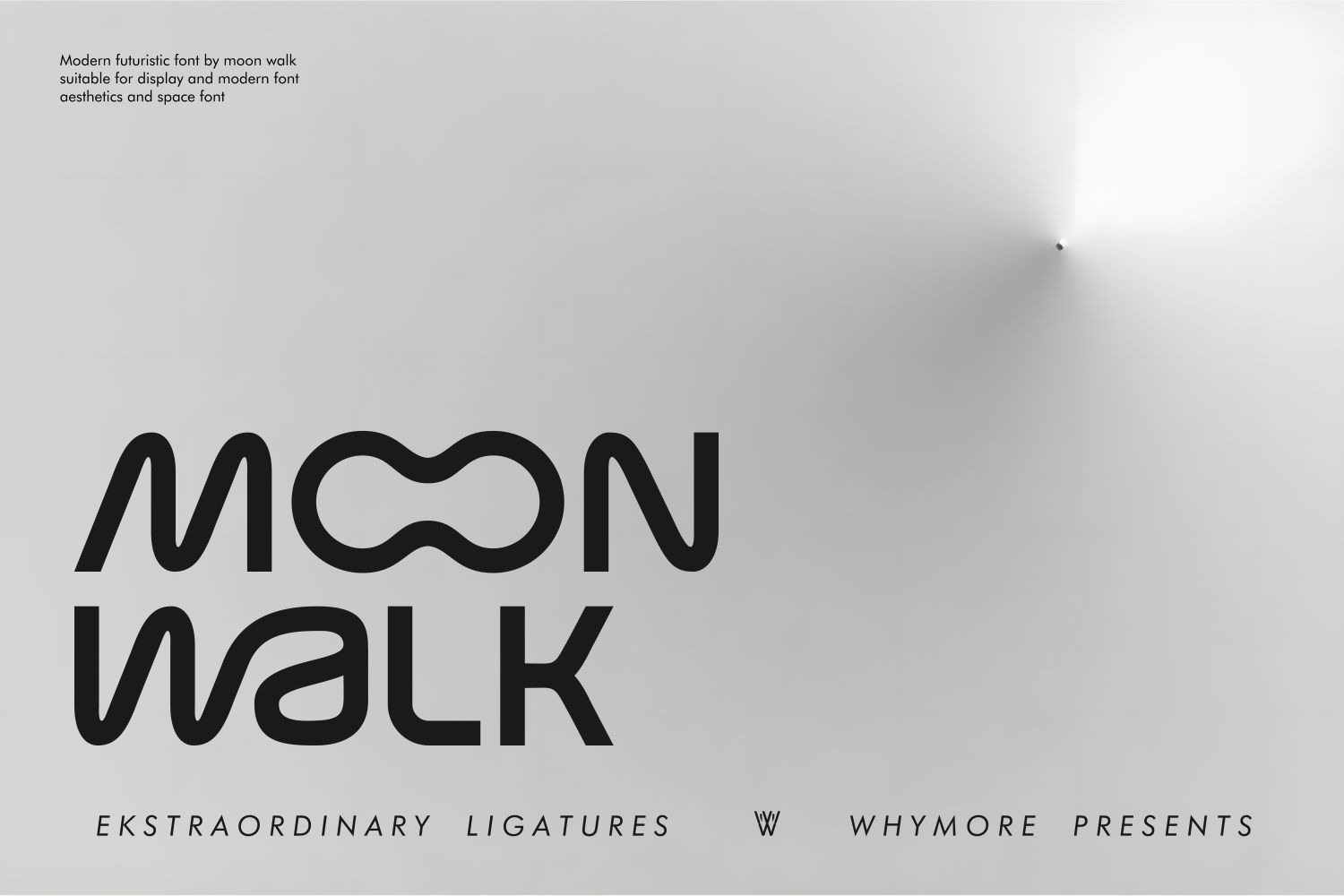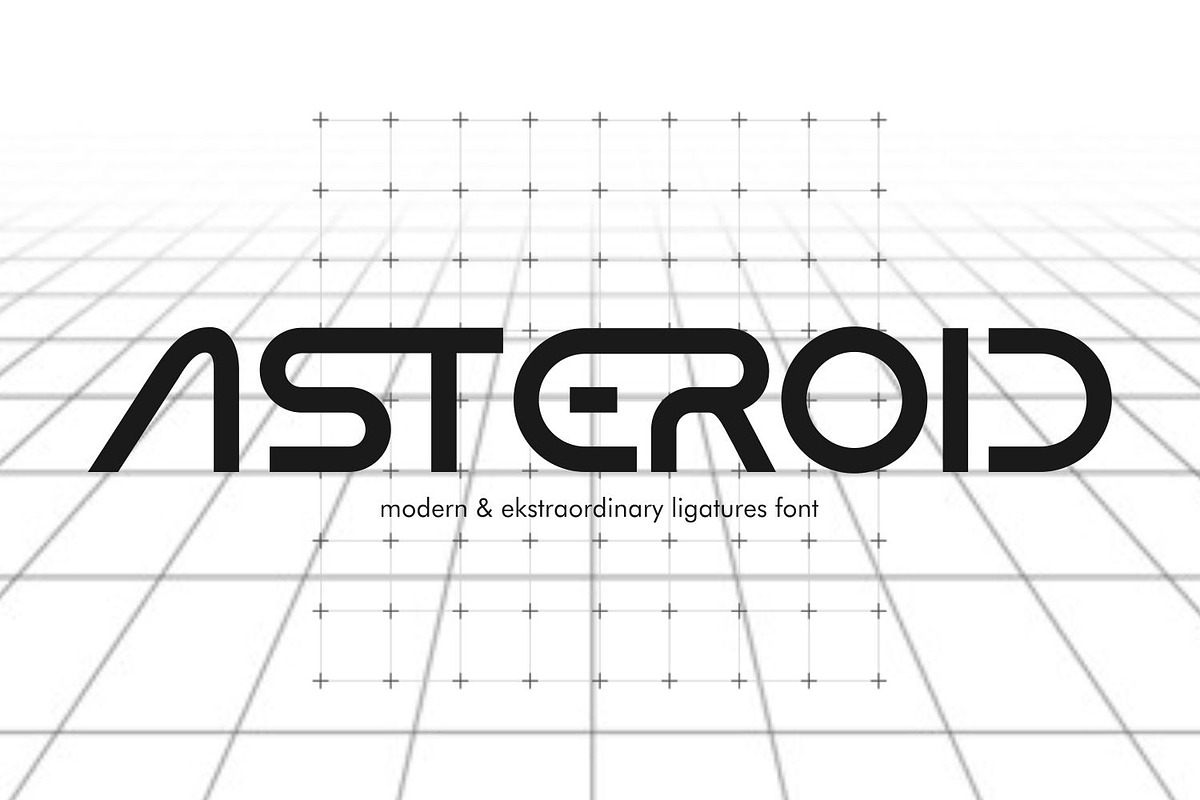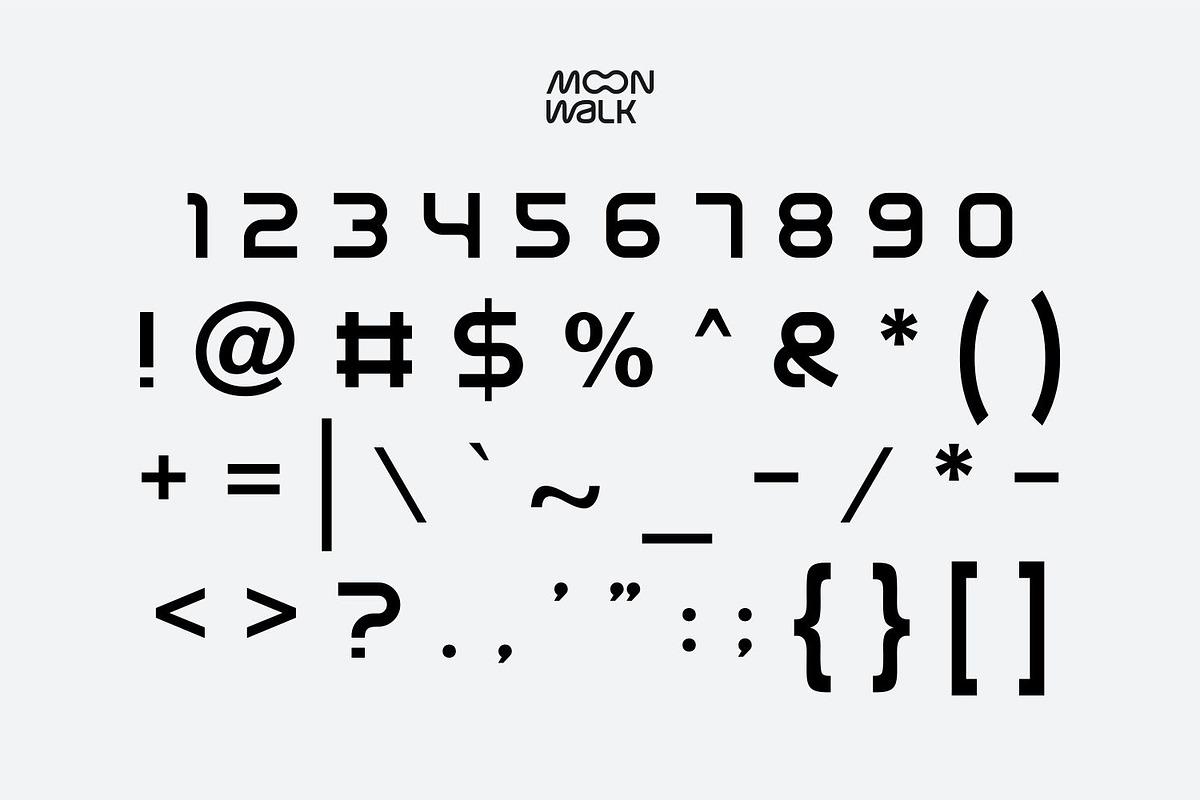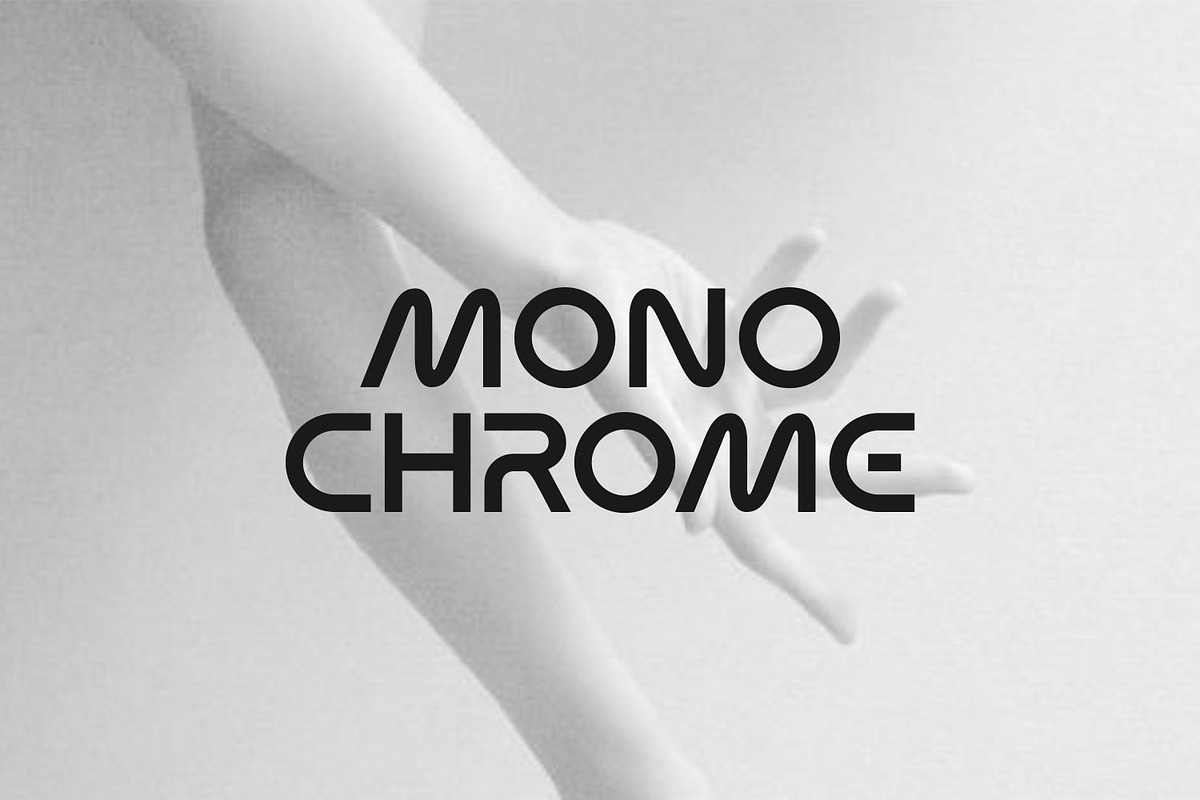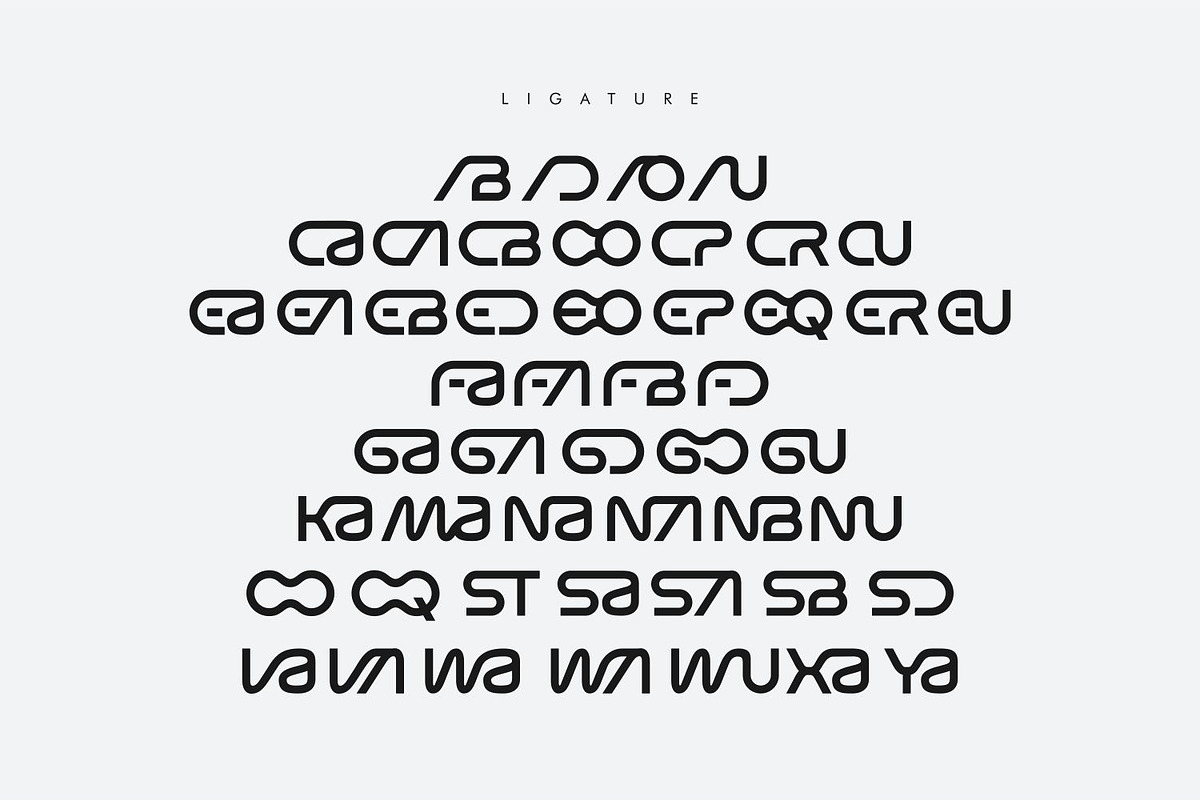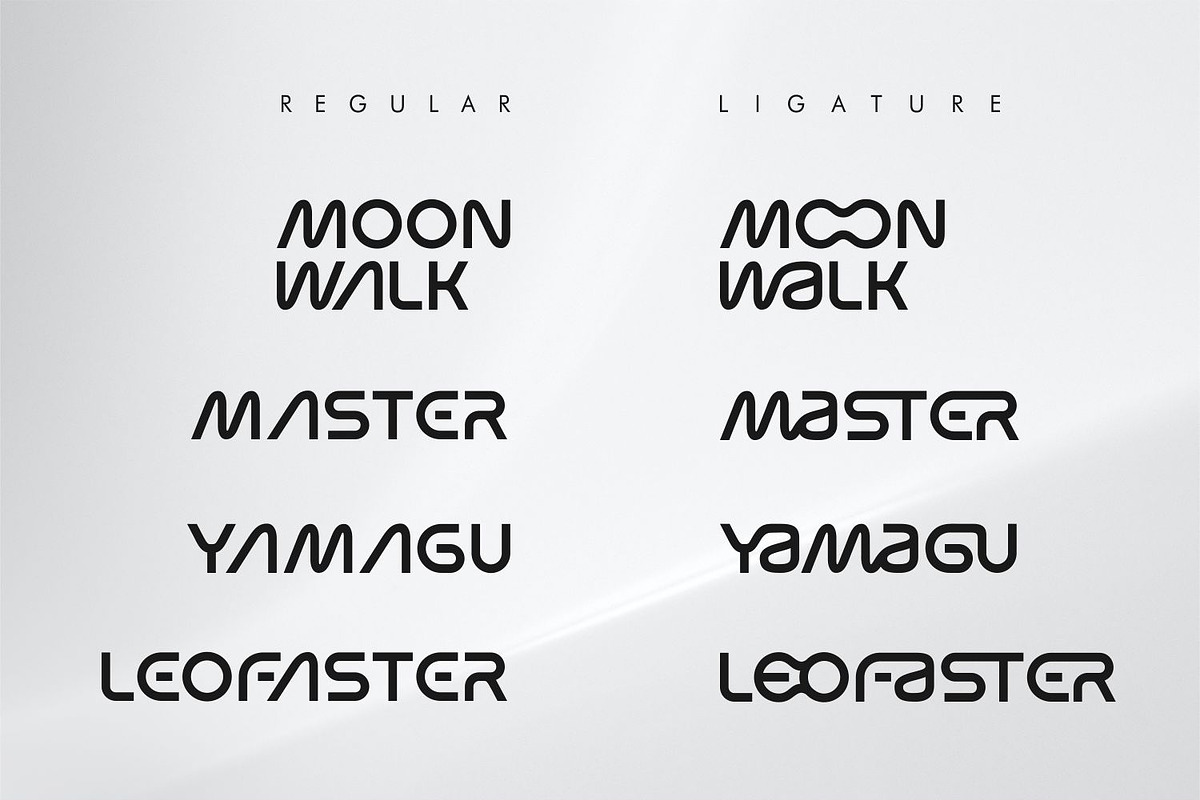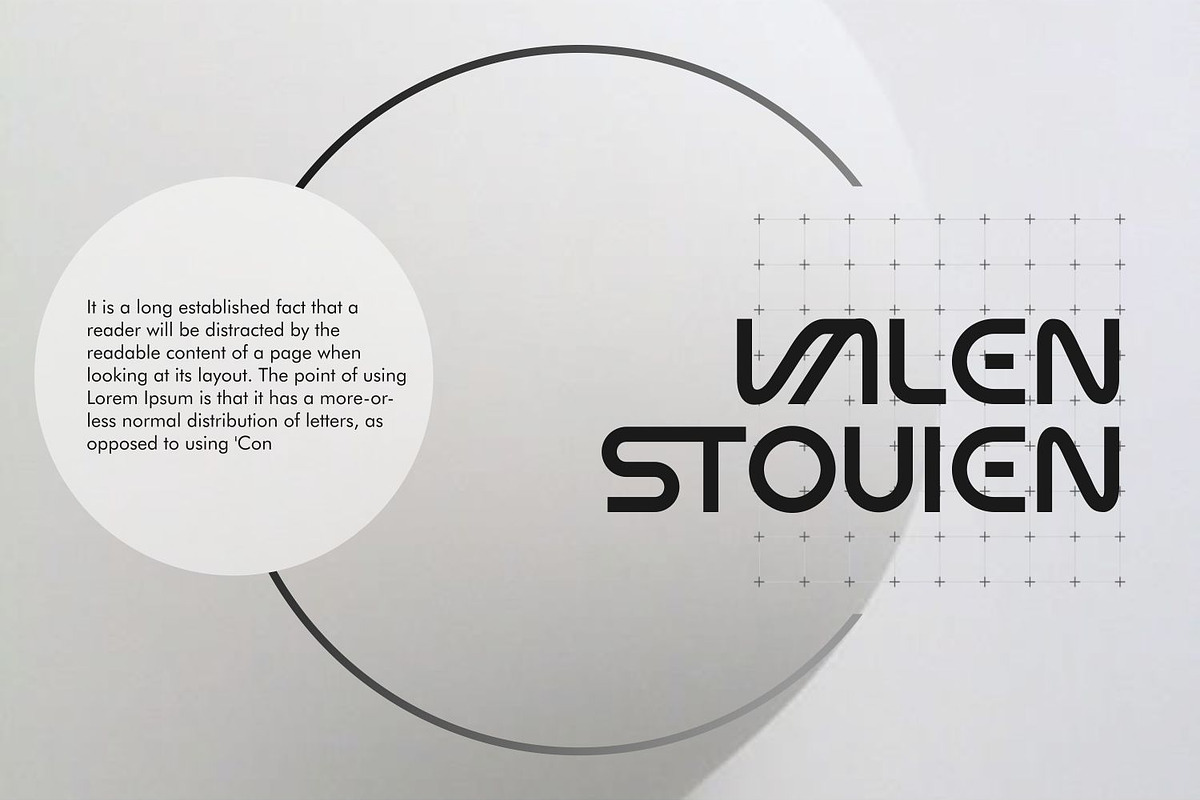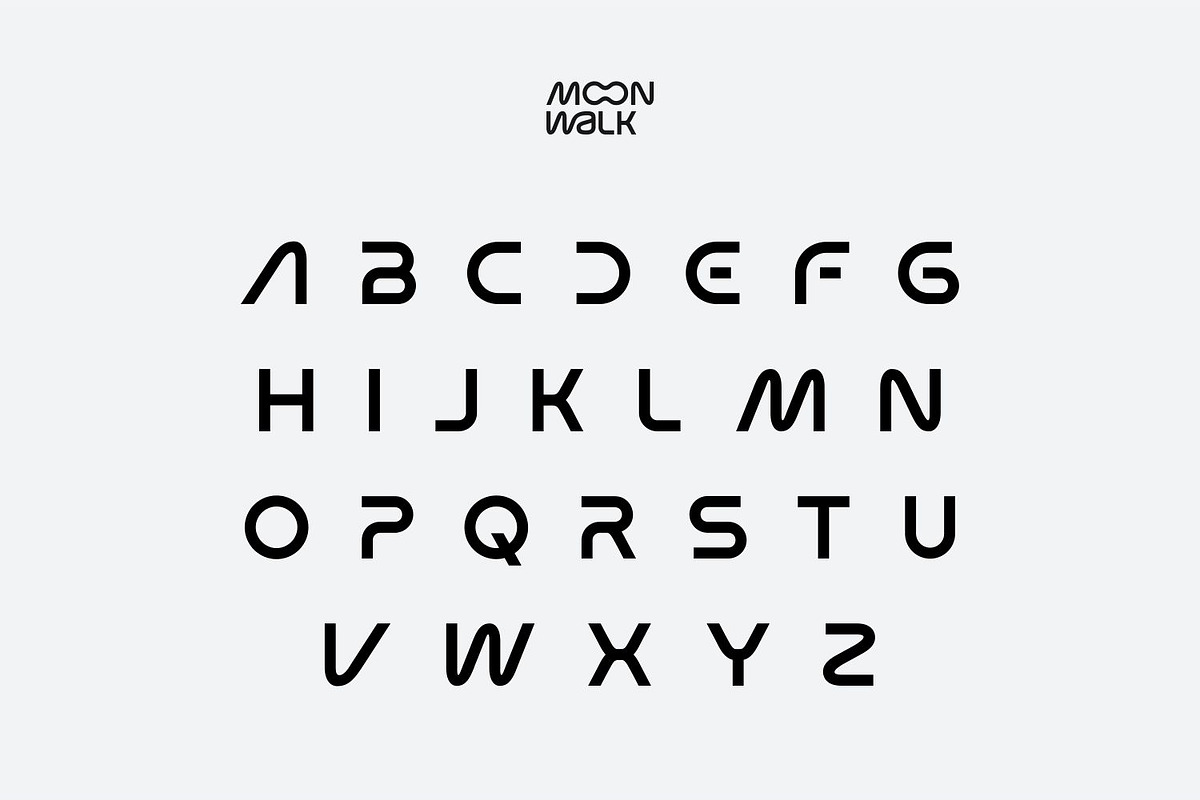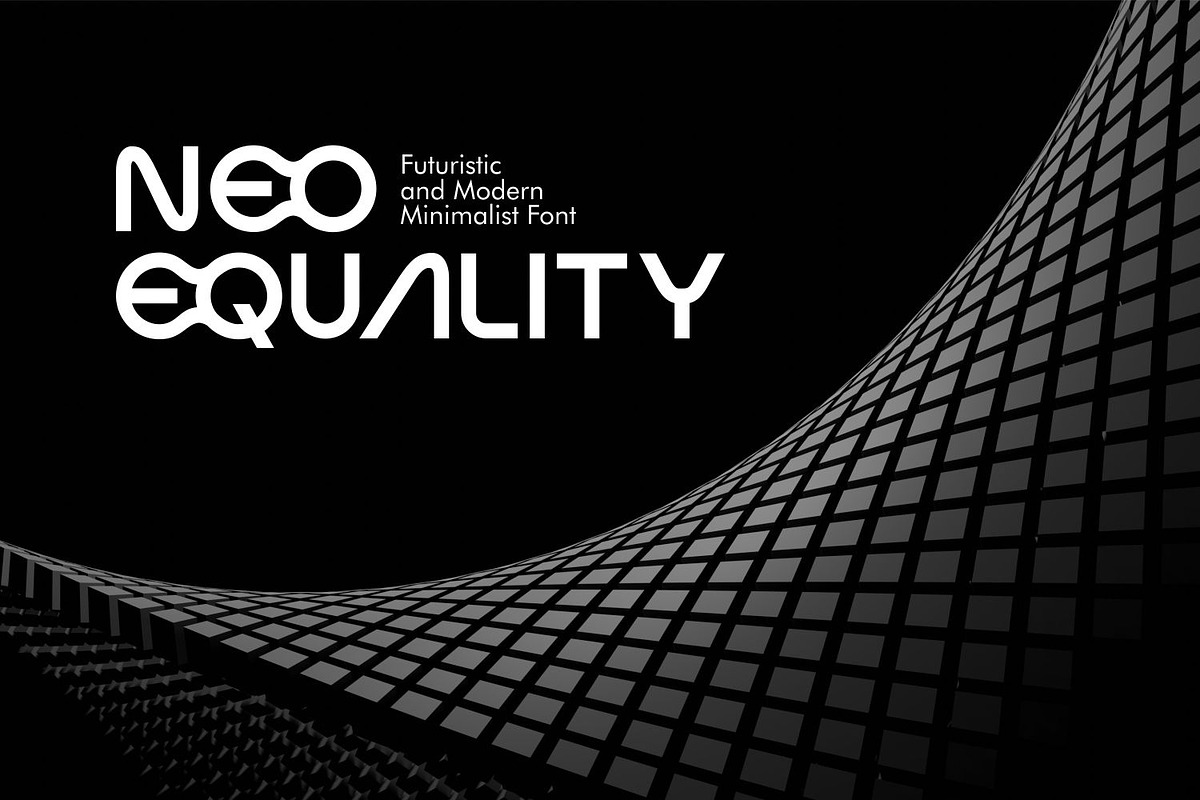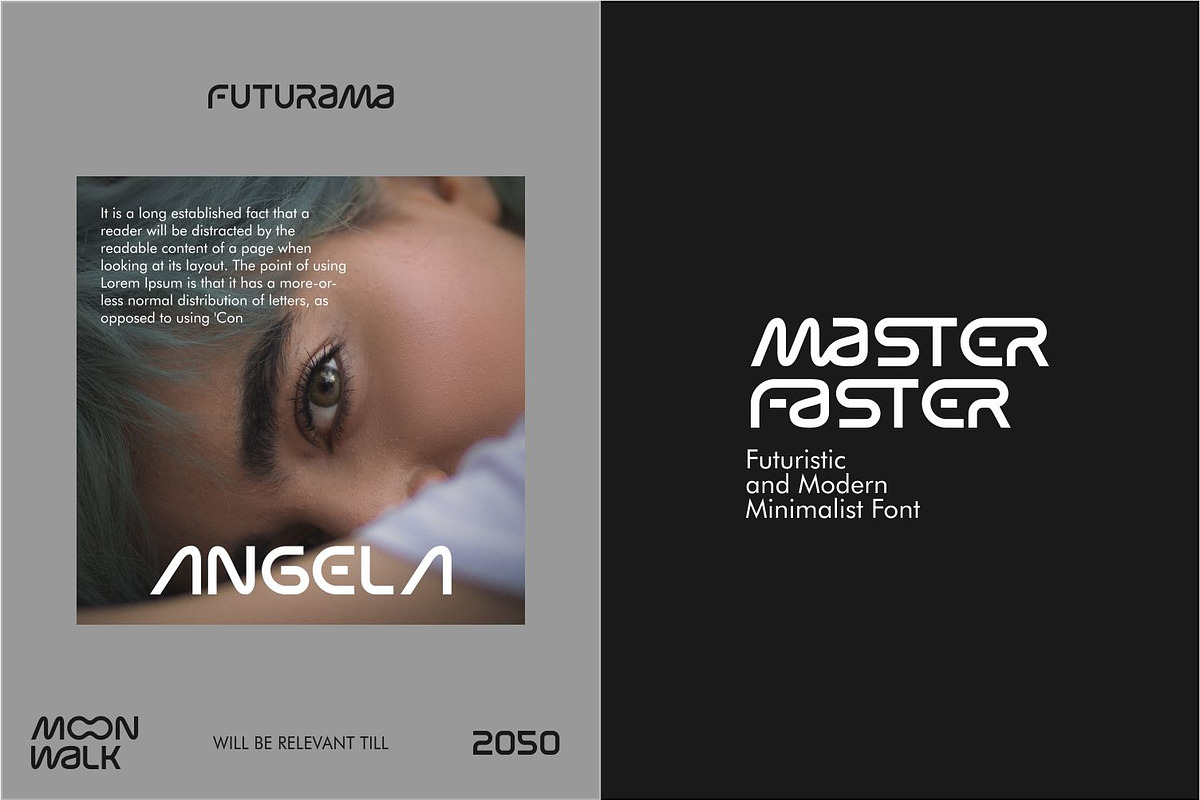
Moon Walk Font | Futuristic Font
The Moon Walk Font is a futuristic typeface that transports your designs into the cosmos with its sleek and avant-garde design. Inspired by space exploration and technological innovation, this font features sharp angles, geometric shapes, and a sense of movement that captures the essence of the future. Whether you’re designing for sci-fi themes, tech startups, or futuristic branding, the Moon Walk Font adds a touch of contemporary flair that captivates the viewer. Its minimalist design and versatility make it perfect for a wide range of digital and print applications. Embark on a journey to the stars with the Moon Walk Font.